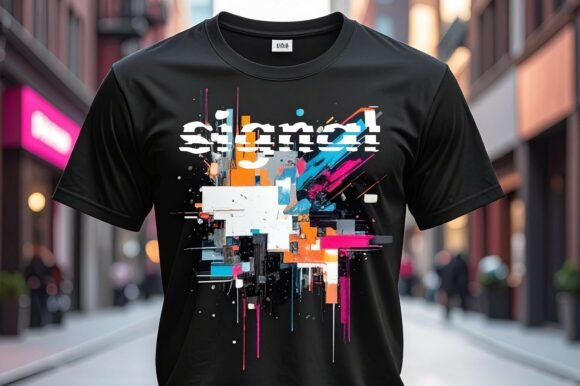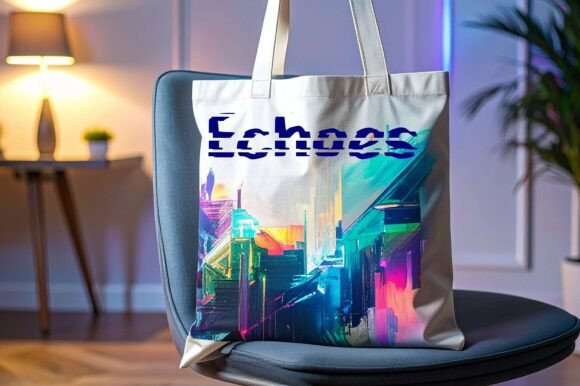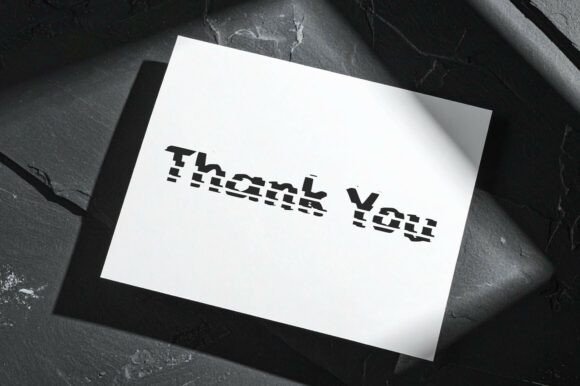
Unleashing the Power of Digital Disruption
Have you ever stared at a pixelated screen, mesmerized by the fragmented beauty of a corrupted image? That’s the moment when creativity strikes, and the world of digital art beckons. It’s the spark that ignites a passion for innovation, and it’s exactly what the Captain Glitch Font aims to capture.
This distinctive display font is more than just a typographical representation – it’s a visual representation of the digital age. With its pixel-inspired aesthetic and fractured lines, Captain Glitch Font brings a sense of modernity and edginess to any project. Whether you’re designing a tech brand image, creating video game titles, or setting up signage for a music festival, this font speaks the language of innovation and disruption.
Captain Glitch Font Key Features
- Unique Characteristics: Captain Glitch Font features a distressed, glitch-art aesthetic with pixelated elements, giving it a unique and eye-catching appearance.
- Character Set: The font includes a comprehensive character set, including uppercase and lowercase letters, numbers, punctuation marks, and special characters.
Captain Glitch Font Review
As a designer, I was excited to dive into the “Captain Glitch Font” and see what it had to offer. Overall, I was impressed with the font’s unique aesthetic and the creative possibilities it presented.
Here are some of the things that worked well: ✨
- Customization options: The font’s glitch effect can be adjusted to various levels, giving designers a lot of control over the final look.
- Legibility: Despite its futuristic and distressed appearance, the font remains surprisingly legible, making it suitable for a wide range of applications.
- Emotional impact: The font’s glitch effect creates a sense of tension and excitement, which can be perfect for projects that require an edgy or futuristic feel.
- Limited character set: The font’s character set is limited, which may make it difficult to use in certain situations where a wide range of characters is required.
- Not suitable for all projects: While the font’s glitch effect can be perfect for some projects, it may not be the best choice for projects that require a more traditional or conservative look.
Overall, I would recommend the “Captain Glitch Font” to designers who are looking for a unique and creative solution for their projects. With some limitations in mind, this font has the potential to add a lot of visual interest and personality to a design.
Some common use cases for Captain Glitch Font include:
- Adding a retro or vintage touch to your designs.
- Creating a futuristic or sci-fi theme.
- Designing video game-inspired graphics.
- Adding a unique and playful touch to your branding.
Remember to adjust the font size and style to fit your design needs and to pair it with other fonts for maximum effect.